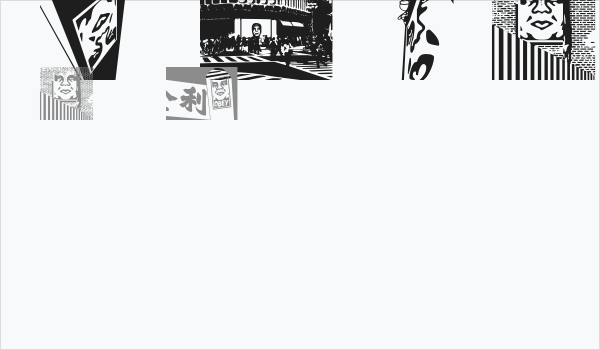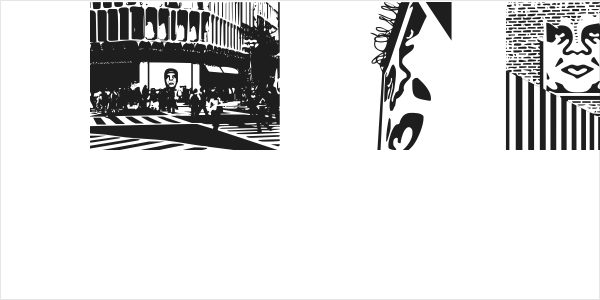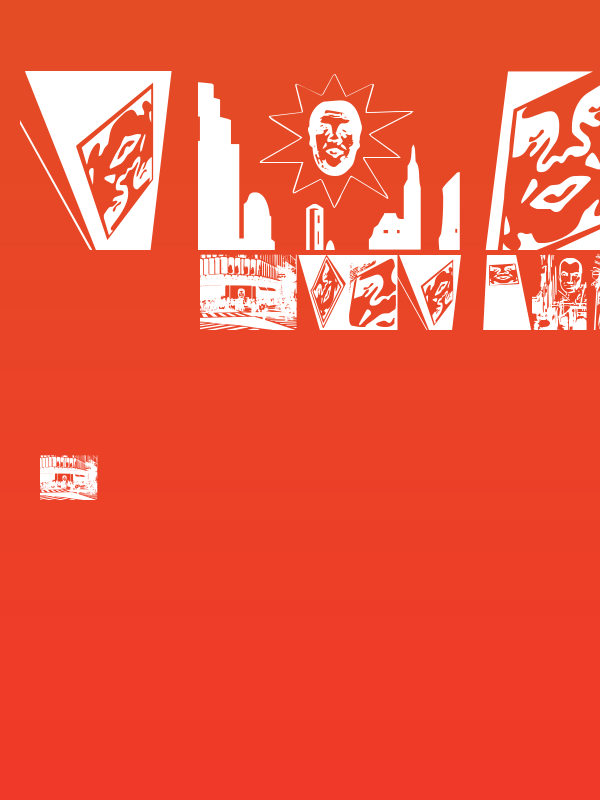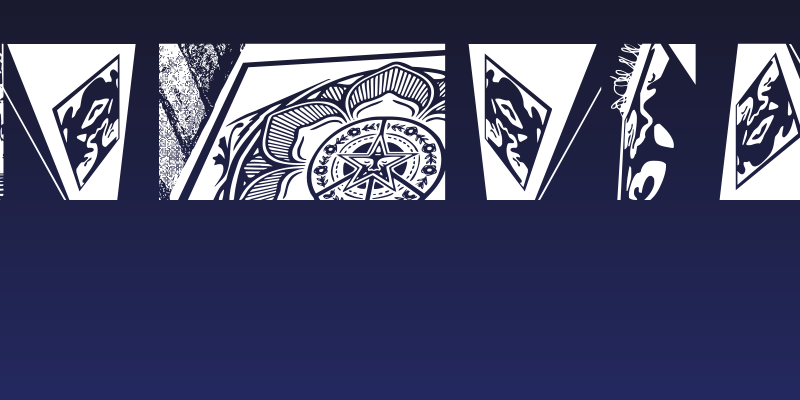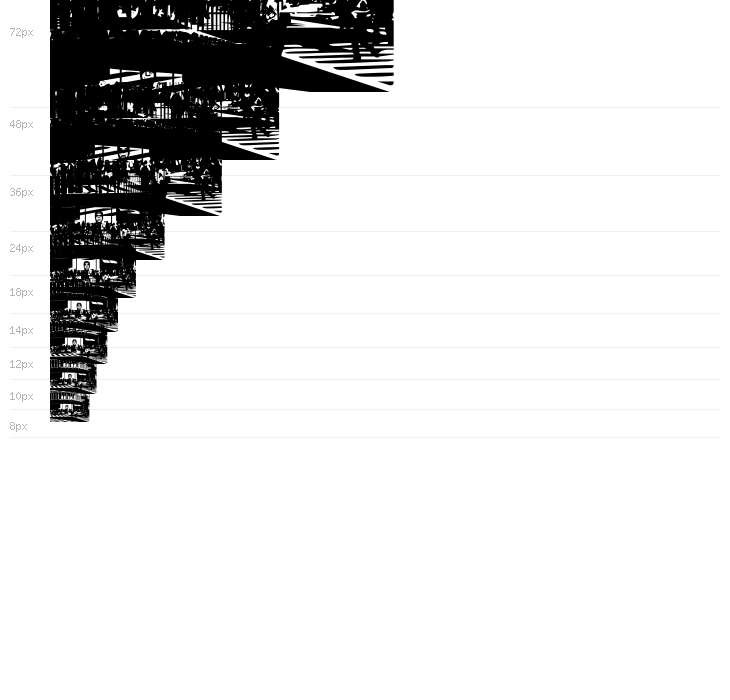
ObeyTownAltCaps Font
ObeyTownAltCaps Description
This font is a highly decorative and artistic typeface, featuring intricate illustrations within each letterform. The characters are filled with detailed graphics that resemble urban art or graffiti, creating a bold and eye-catching appearance. Each letter is a unique piece of art, incorporating elements like faces, buildings, and abstract designs. The style is reminiscent of street art, with a strong visual impact that makes it suitable for creative and unconventional projects. The font's complexity and artistic nature make it more suitable for display purposes rather than body text.
| Overall Style | Modern, Artistic |
| Proposed Projects | Ideal for posters, album covers, street art projects, and any design requiring a bold, artistic statement. |